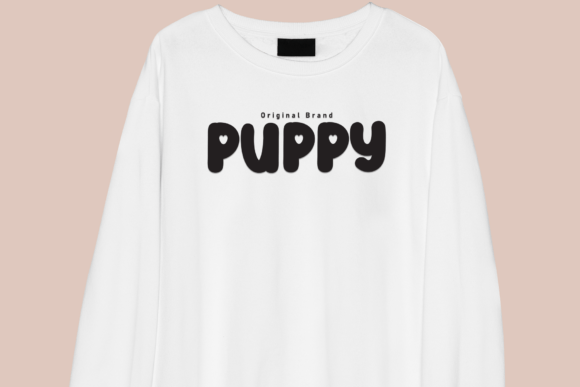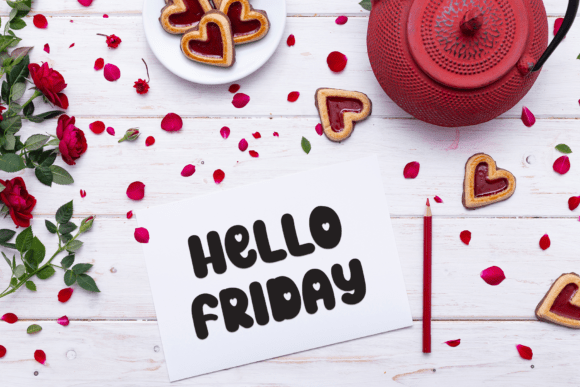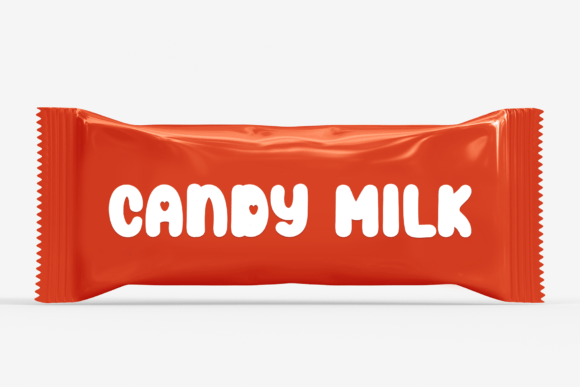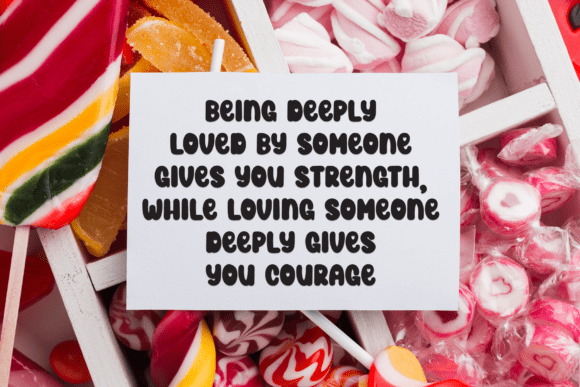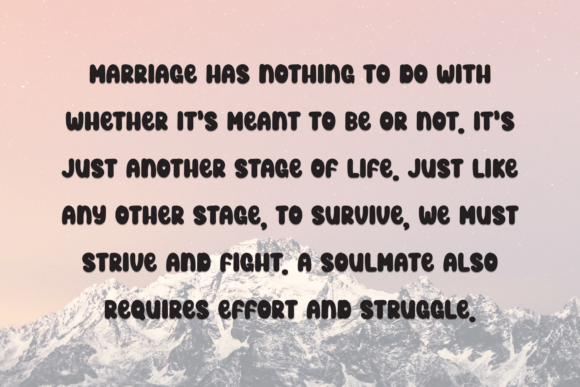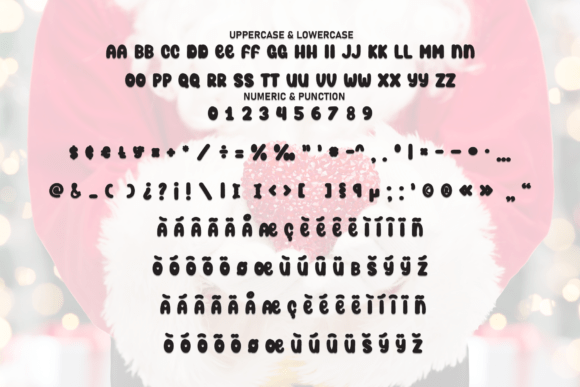
Introduction to Lovesanta Font
As you sit at your desk, surrounded by scraps of paper and half-empty coffee cups, the spark of inspiration hits – it’s time to create something truly special. Maybe it’s a wedding invitation that will make the bride-to-be cry happy tears, or a birthday card that will put a smile on the recipient’s face. Whatever the project, one thing is certain: the right font can make all the difference. That’s where Lovesanta Font comes in – a delightful, handwritten display font that adds a touch of whimsy and charm to any design.
With its high-quality, transparent background, Lovesanta Font is the perfect design resource for any creative project. Whether you’re a seasoned designer or just starting out, this font is sure to be a valuable addition to your toolkit. And the best part? It’s available for free download, making it accessible to designers of all levels. So why settle for a generic, run-of-the-mill font when you can add a dash of personality to your designs with Lovesanta Font?
Key Features of Lovesanta Font
- High-quality design with a transparent background, perfect for creative projects and designs requiring a seamless blend with other elements.
- Unique, elegant design with a touch of sophistication, ideal for high-end creative projects and branding materials.
- Designed to be highly legible, making it perfect for body text, headings, and titles in creative projects.
Honest Review: Lovesanta Font
As a designer, I’m always on the lookout for unique and high-quality design resources to elevate my creative projects. The Lovesanta Font has caught my attention, and I’d like to share my honest review with you.
What works well: ✨ This font is a game-changer for designers who need a fun and playful font for their projects. It’s perfect for adding a touch of whimsy to your designs. The font is available for free download, making it an excellent design resource for those on a budget.
- Perfect for creative projects, such as social media graphics, posters, and more
Any limitations: ⚠️ While the Lovesanta Font is a great addition to any designer’s toolkit, it may not be suitable for all types of projects. The font’s playful style may not be the best fit for more serious or corporate designs.
Overall impression: I’m impressed with the Lovesanta Font’s unique style and high-quality design. It’s a great resource for designers who need a fun and creative font for their projects.
Lovesanta Font is ideal for a variety of design projects, including social media graphics, blog posts, and marketing materials. Its unique style and high-quality design make it a great choice for designers looking to add a creative touch to their work.